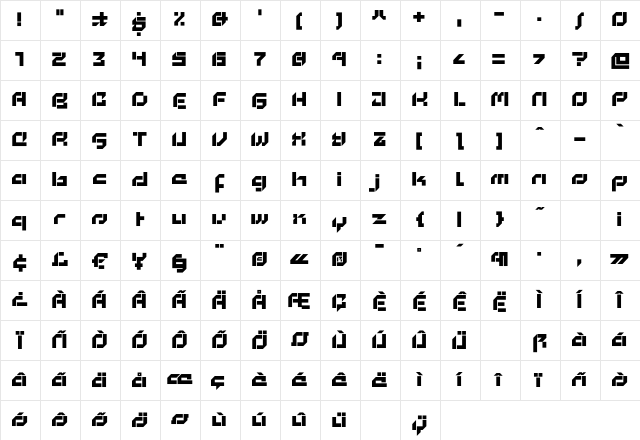
Cyberwar Defense Free Font
Cyberwar Defense
Style: Defense
Design Context for Cyberwar
Cyberwar has a distinctly futuristic character, with geometric precision and clean angles that feel at home in technology, gaming, and sci-fi contexts.